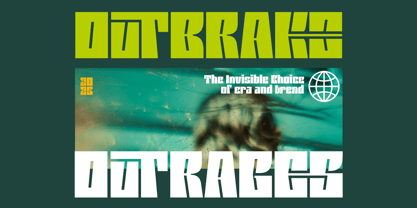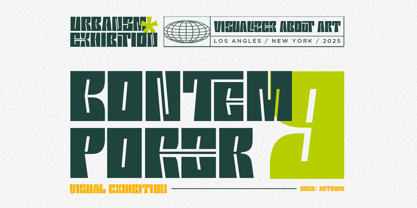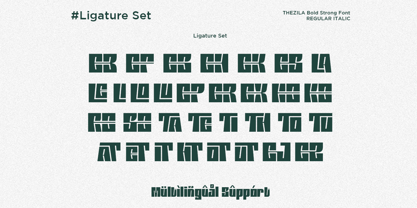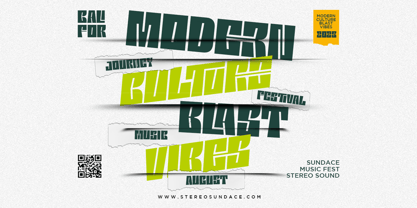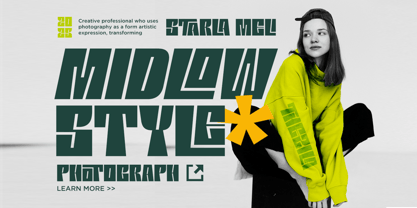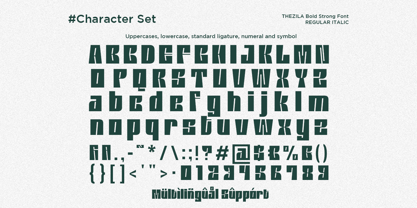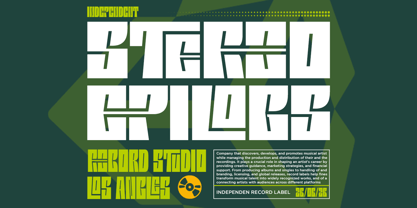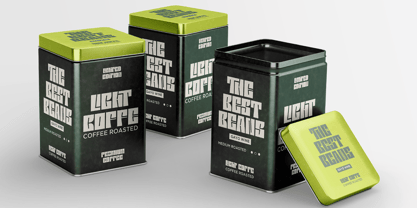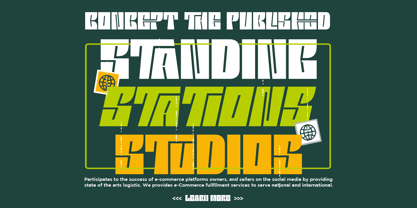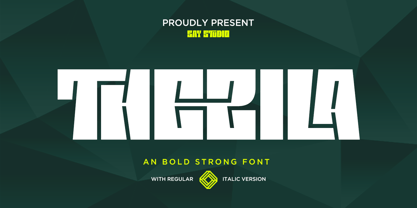
Thezila
by Say Studio
The Thezila Font Family was designed by Mussyayin and published by Say Studio. Thezila contains 2 styles and family package options. More about this family
Thezila is a bold, strong display font designed to deliver maximum impact with a modern and futuristic edge. Featuring sharp angles and powerful geometric structures, this typeface creates a striking visual presence that instantly grabs attention. Its unique character shapes make it perfect for designs that demand strength, confidence, and innovation. Crafted for versatility, Thezila comes in both regular and italic styles, allowing designers to explore dynamic typography compositions. The italic version adds motion and energy, making it ideal for sports branding, gaming visuals, tech projects, and bold headlines. Every letter is engineered to maintain consistency while offering a distinctive personality. Whether you're creating posters, logos, esports branding, or futuristic layouts, Thezila provides a strong and modern aesthetic. It’s the perfect choice for designers looking to push boundaries and create impactful, high-energy designs.